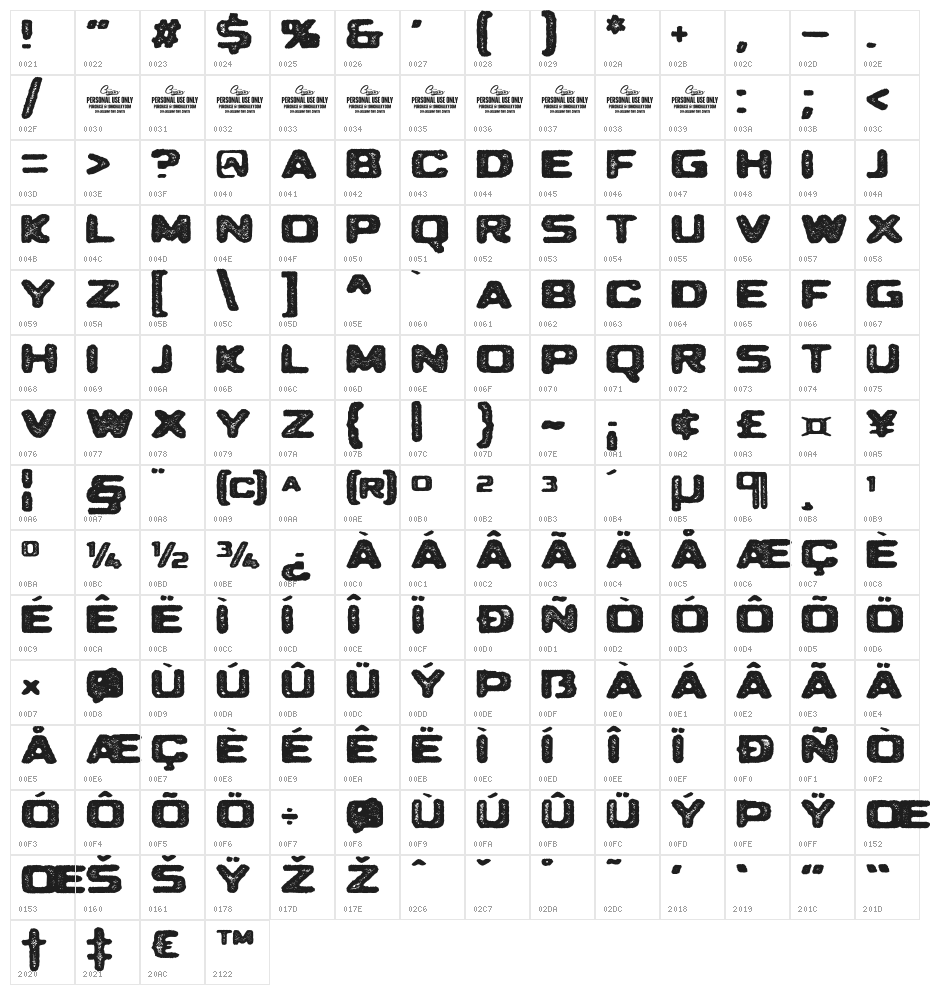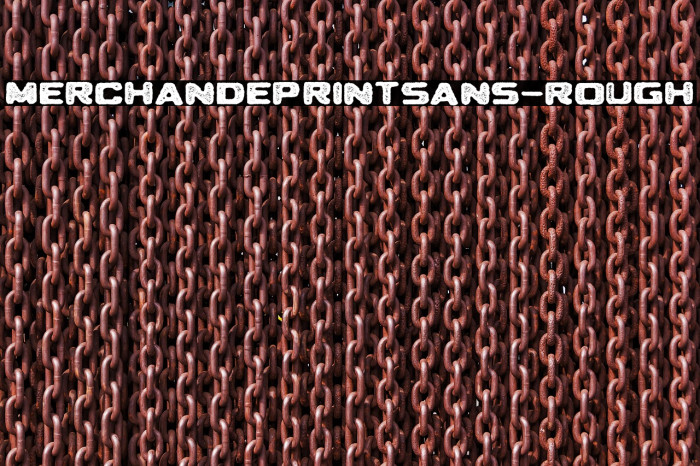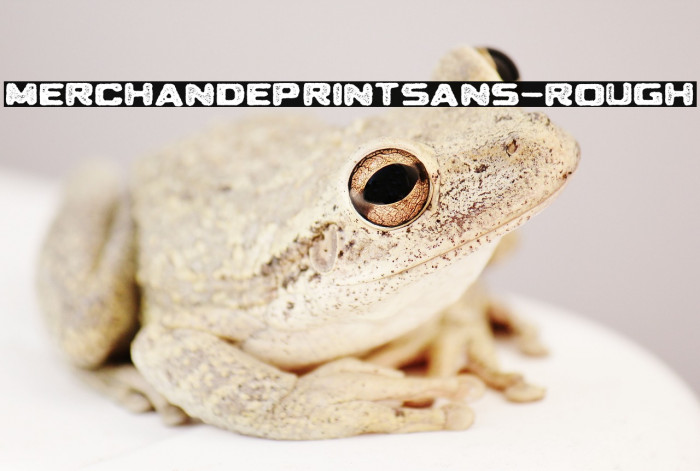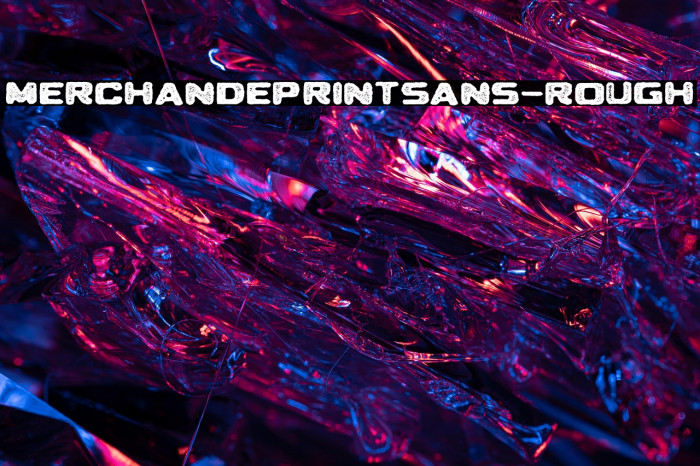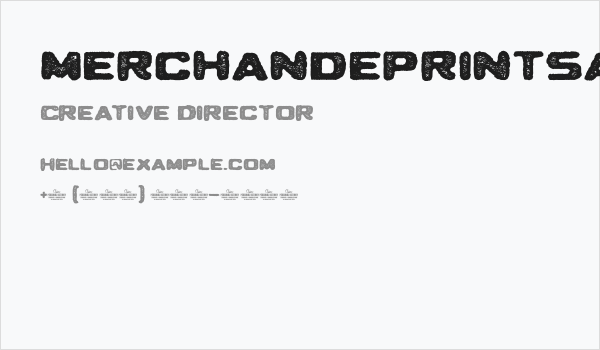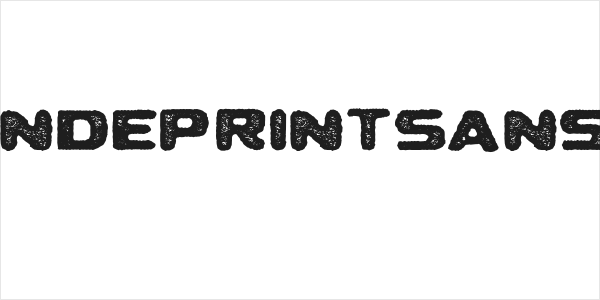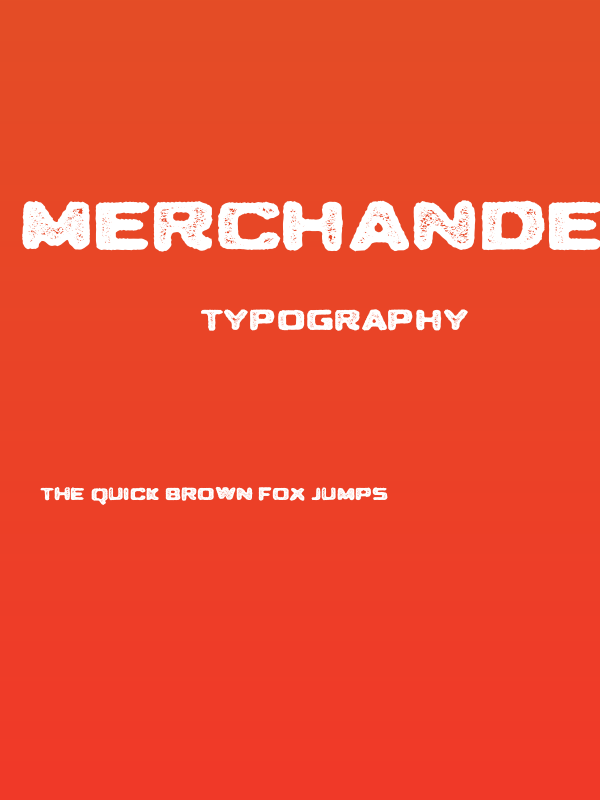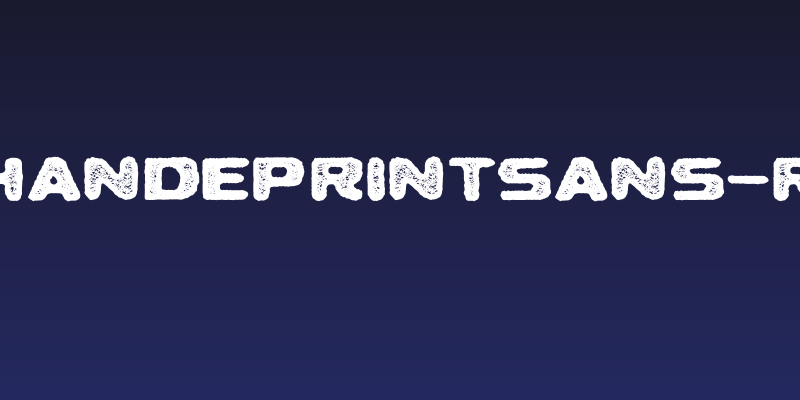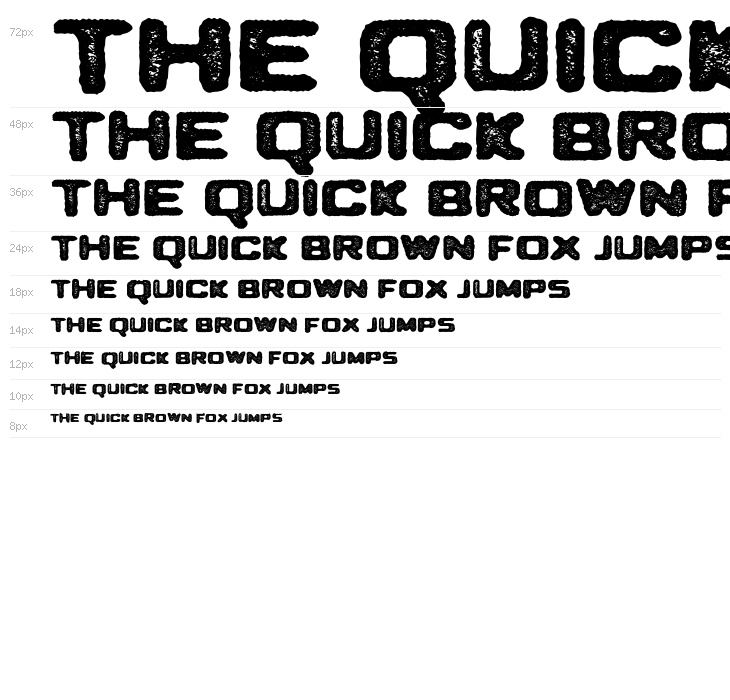
MerchandePrintSans-Rough Font
✎ Sans Serif
MerchandePrintSans-Rough Description
This font features a rough, textured appearance that gives it a distressed and vintage feel. The characters are bold and sans-serif, with a slightly irregular outline that adds to its handcrafted look. The uppercase and lowercase letters maintain a consistent style, with rounded edges and a somewhat blocky structure. The numbers and special characters follow the same design, ensuring uniformity across all glyphs. This font's unique texture makes it stand out, providing a rugged and artistic aesthetic.
| Overall Style | Vintage |
| Use Case | Logos, Posters, Branding |
| Proposed Projects | Ideal for projects that require a rustic or vintage touch, such as posters, branding for artisanal products, or retro-themed designs. |